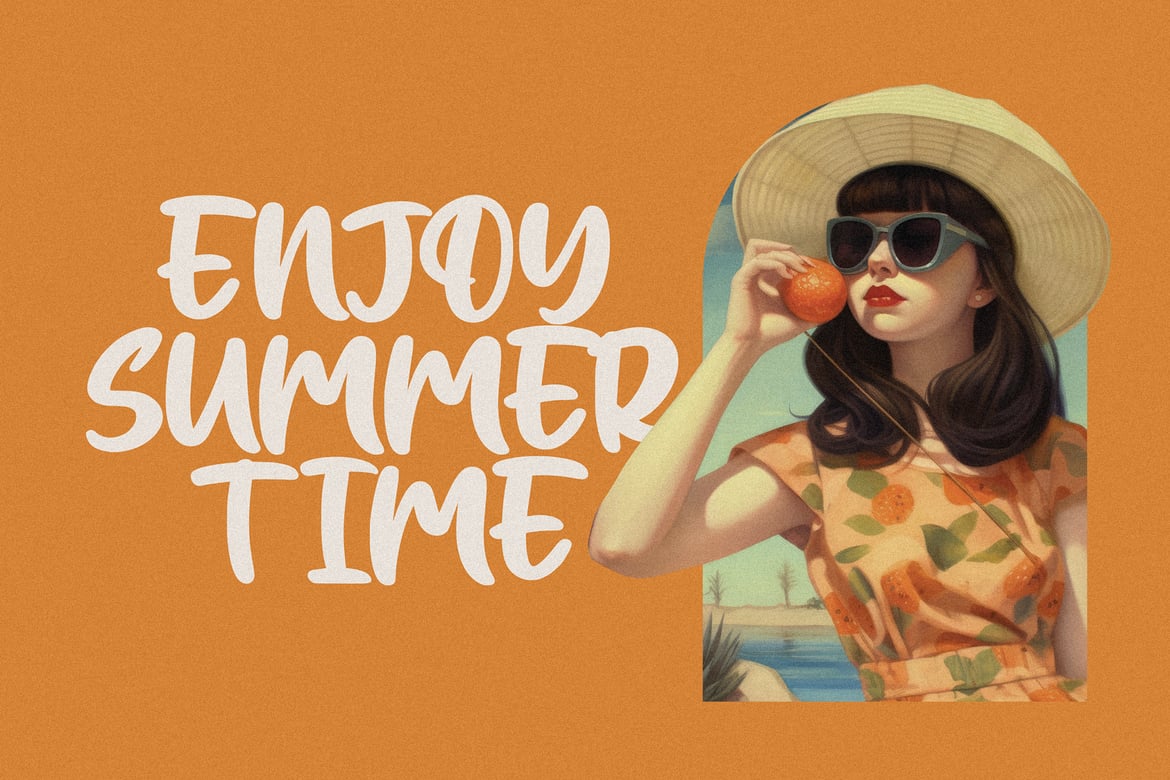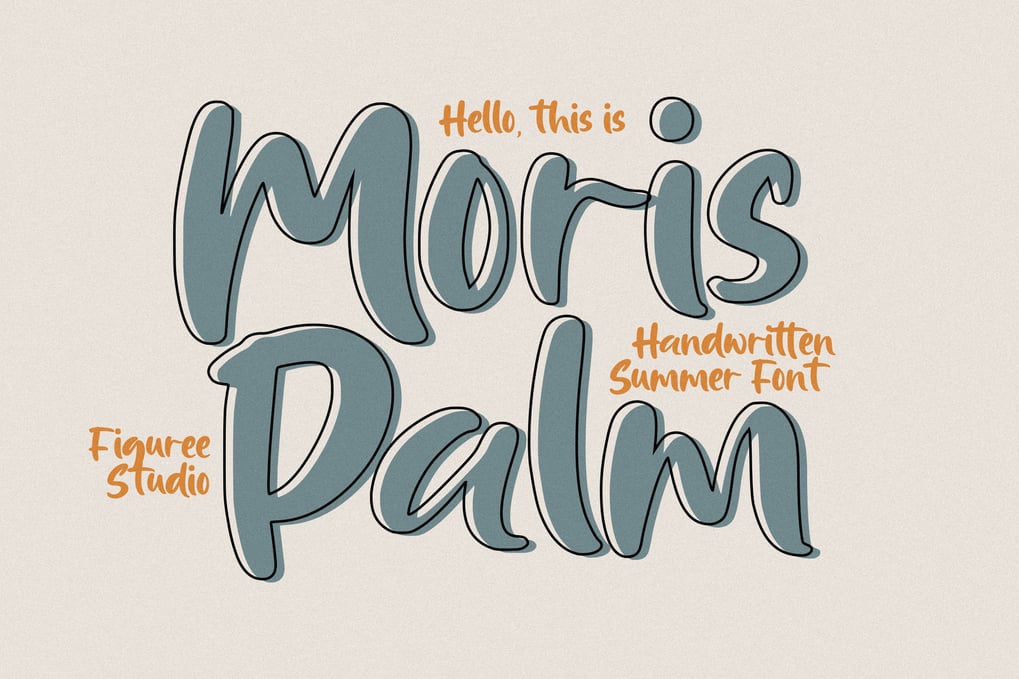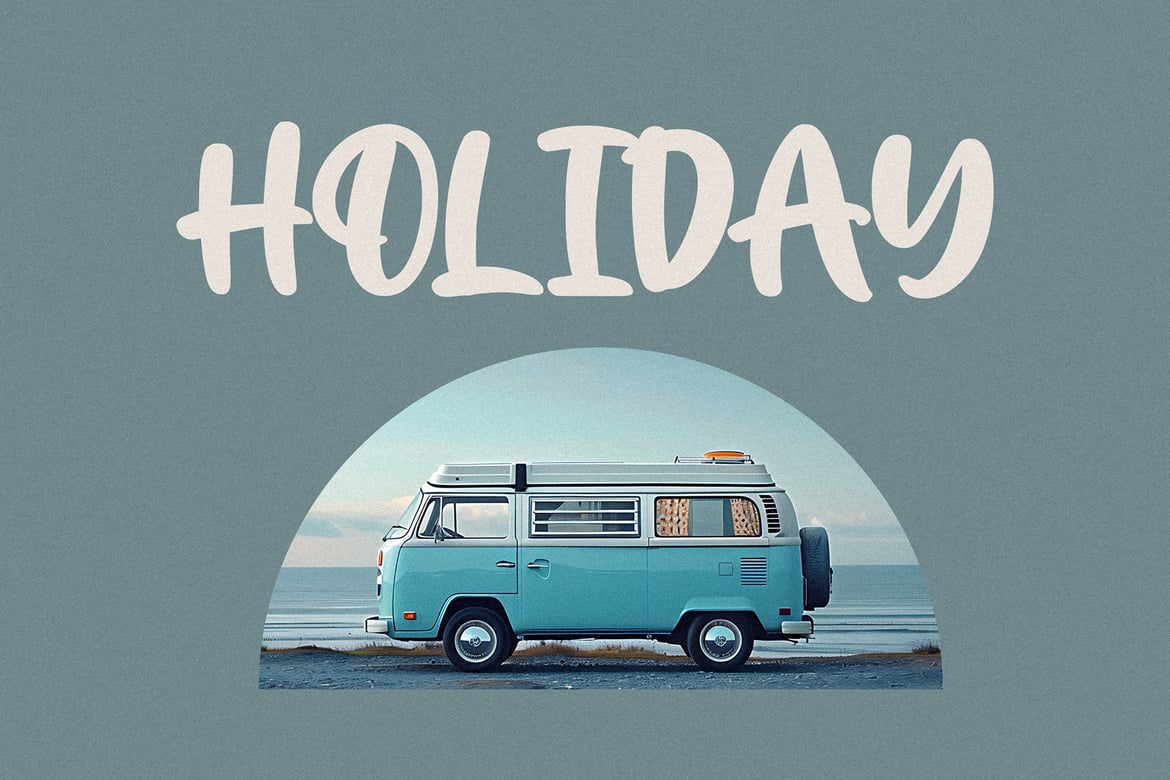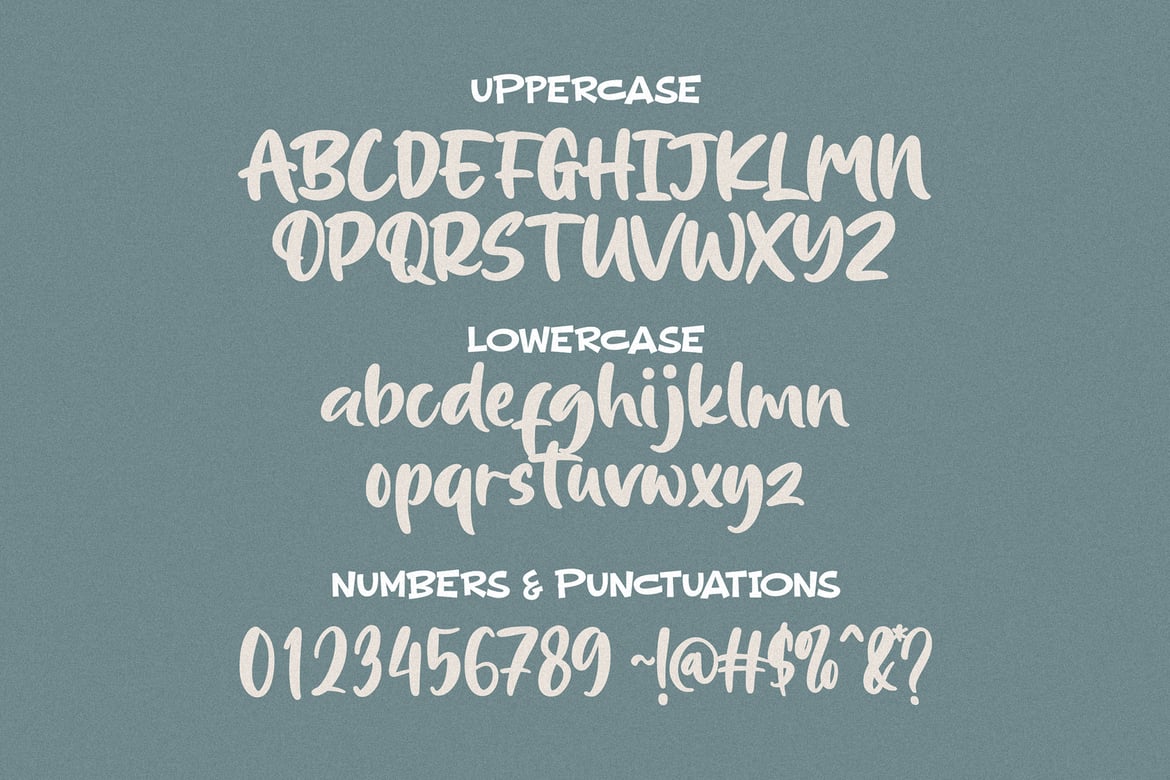
Moris Palm – Handwritten Summer Font
Summer Vibes: Moris Palm brings the essence of summer to your designs. Its casual, handwritten letterforms evoke the feeling of sun-kissed days and relaxed beachside moments, making it ideal for any project that needs a lighthearted and cheerful look.